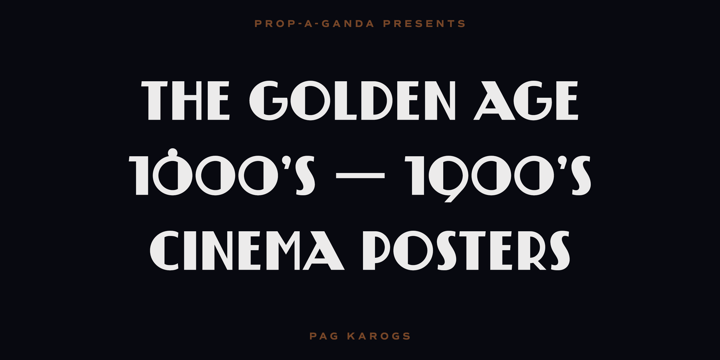
PAG Karogs
por Prop-a-ganda
La familia tipográfica PAG Karogs fue diseñada por Ryoichi Tsunekawa y publicada por Prop-a-ganda. PAG Karogs contiene 1 estilos.
Prop-a-ganda offers retro-flavored fonts inspired by lettering on retro propaganda posters, retro advertising posters, retro packages all the world over. This is perfect font for your retrospective project. PAG Karogs is geometric, art-deco font that had been used for a match box. The bowls of this font is based on a positive circle. The contrast of a circle and straight line effective in producing brisk structural rhythms. This is great for branding, packaging and posters or any other kind of display use.
Diseñadores: Ryoichi Tsunekawa
Editorial: Prop-a-ganda
Fundición: Prop-a-ganda
Propietario del diseño: Dharma Type